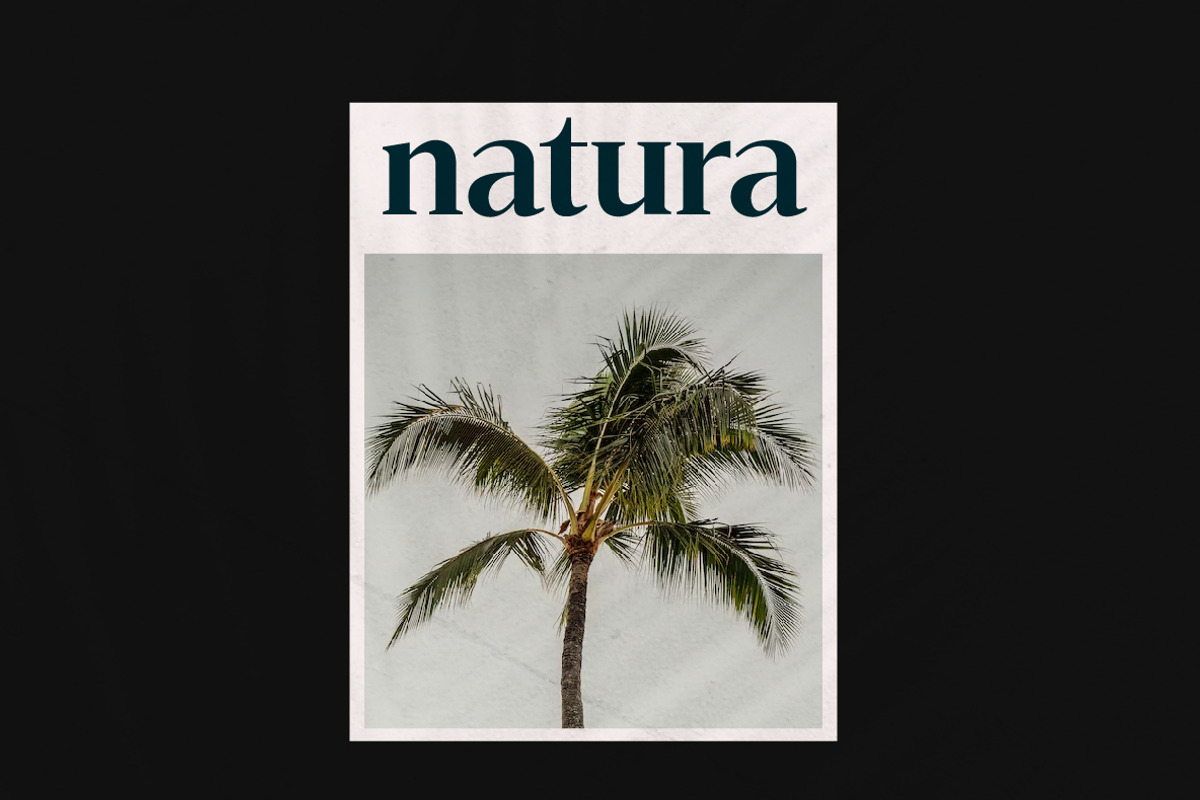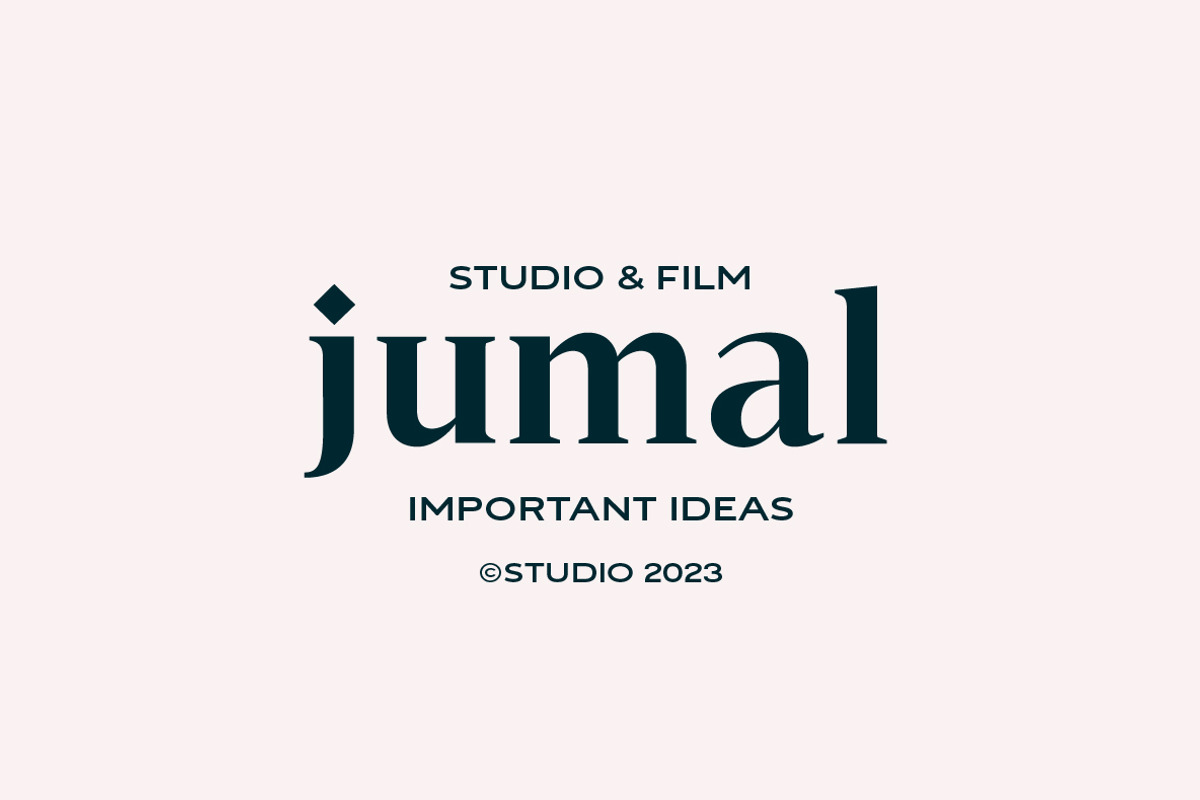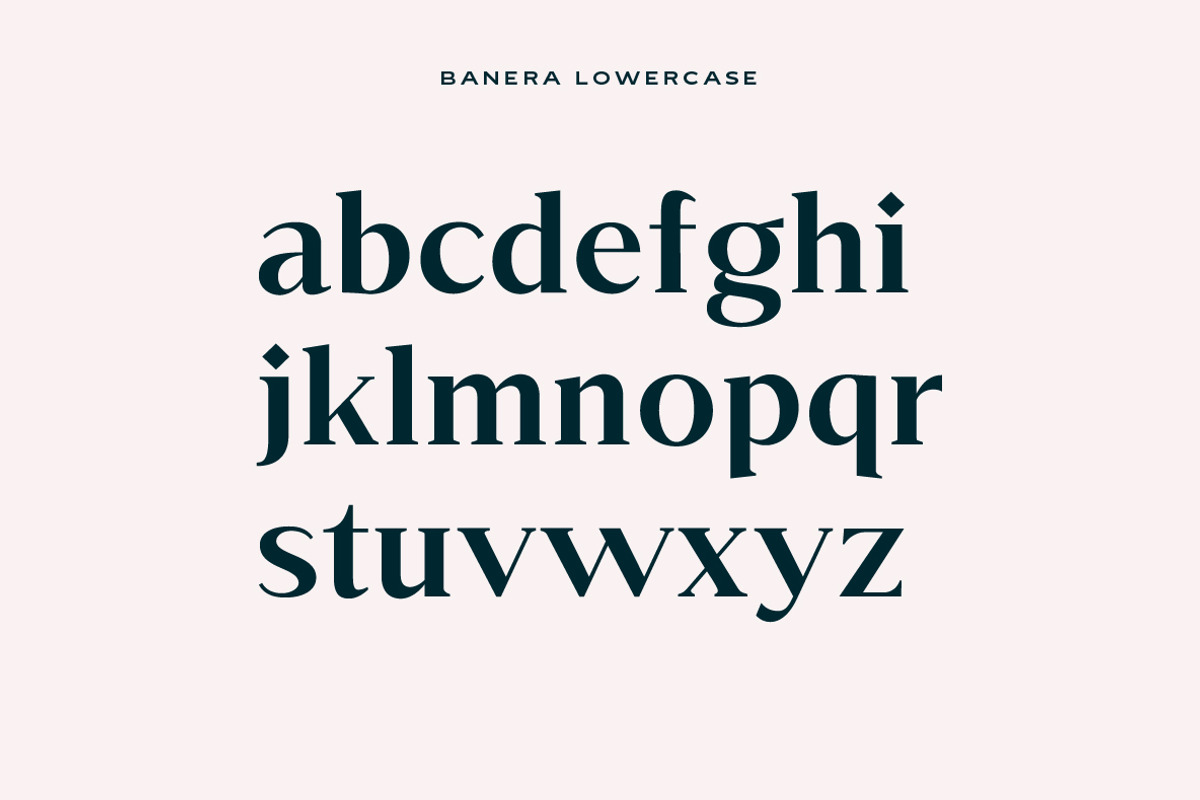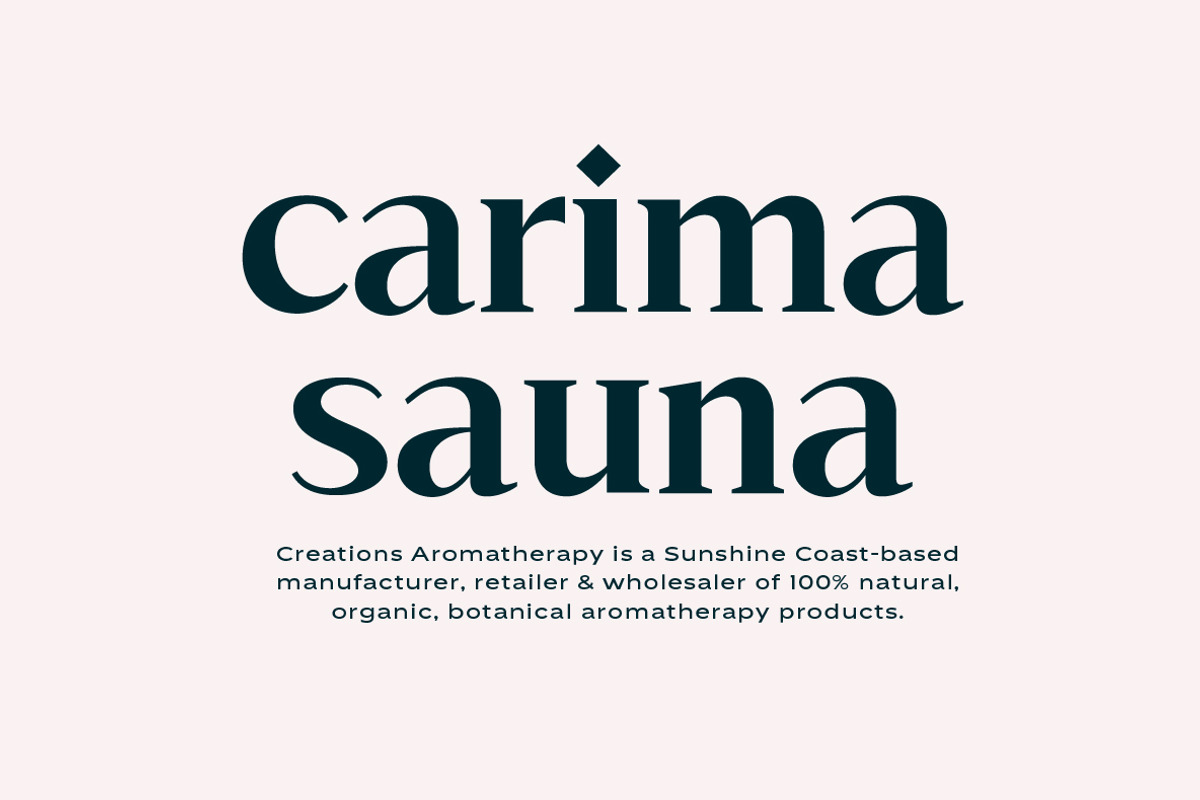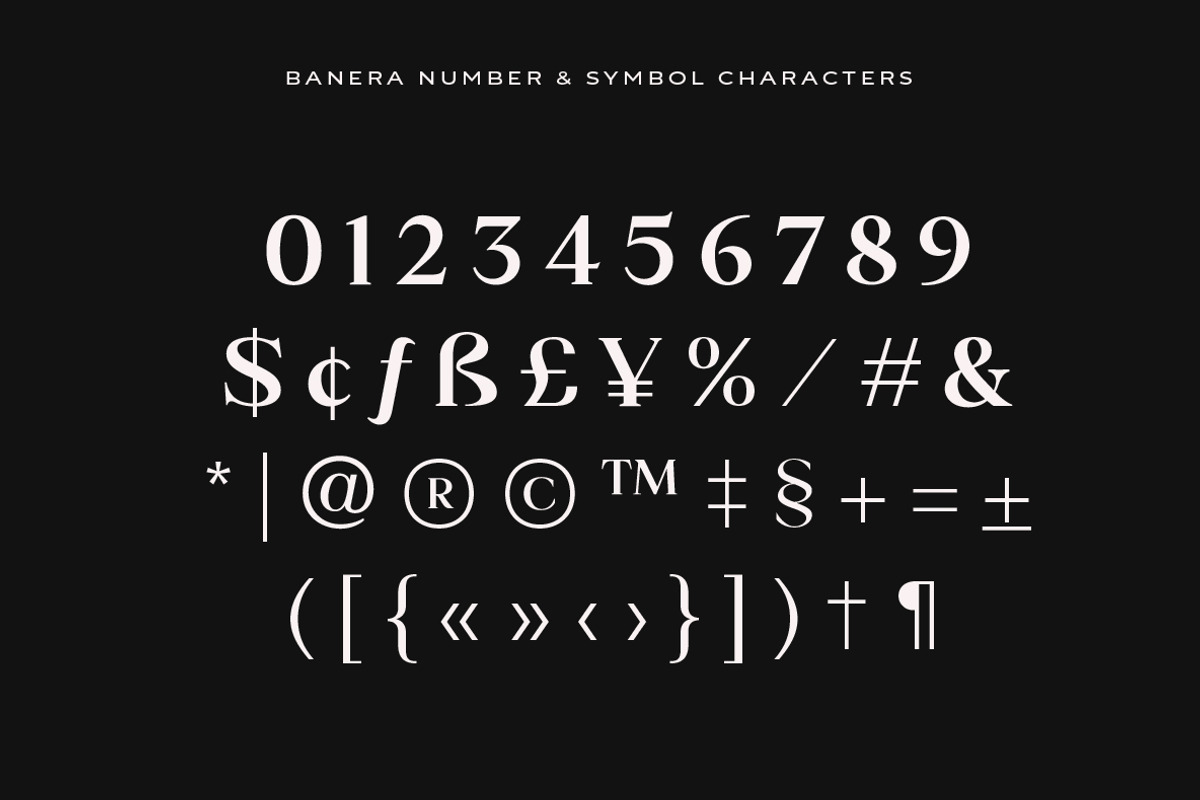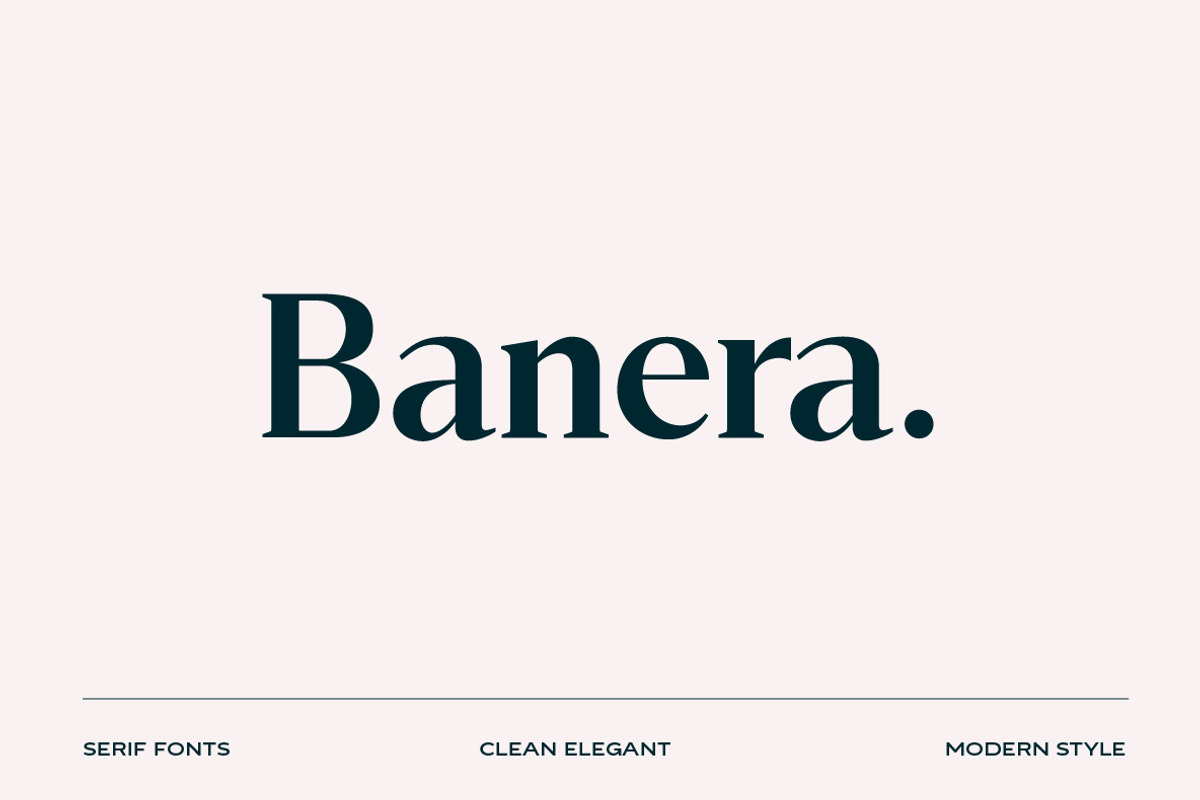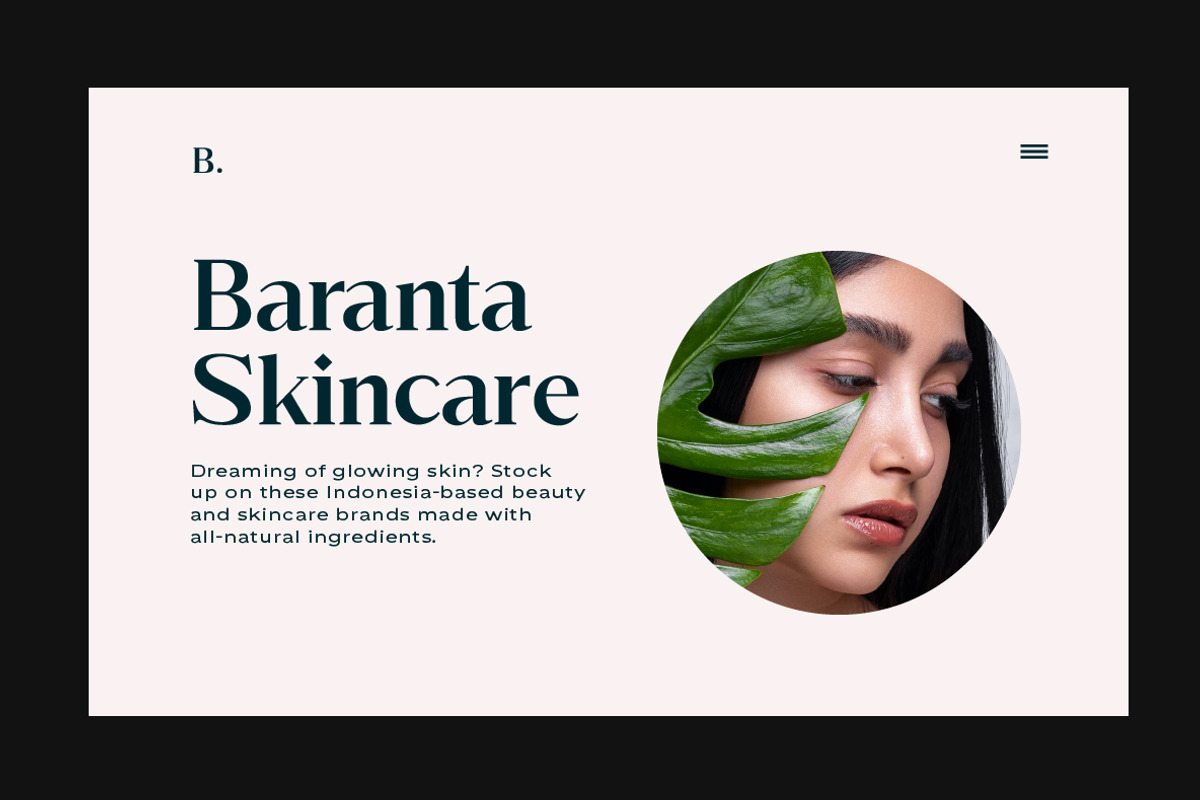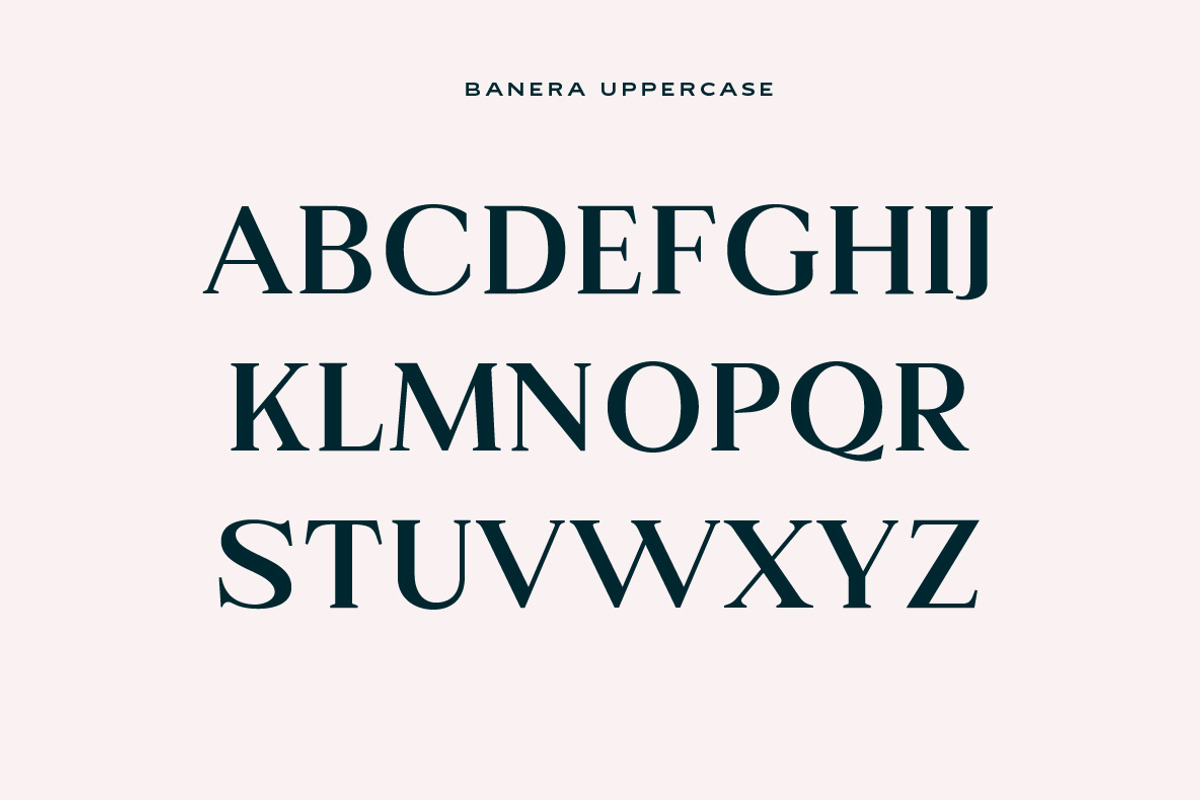
Banera Display Font
Introducing Banera, the elegant display font designed to take your designs from ordinary to extraordinary. Perfect for Digital, Print, and more.
- Instant sophistication for any project
- Powerful serif design creates a breathtaking look
- Elevate your branding game with this versatile font
Elevate your design projects to high quality with Banera, the stunning Serif display font from Banera. this typeface adds sophistication and beauty to every project.